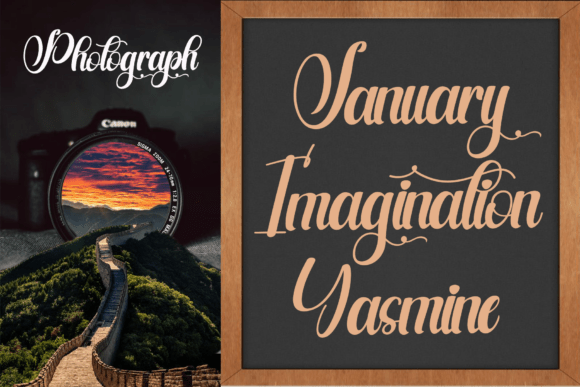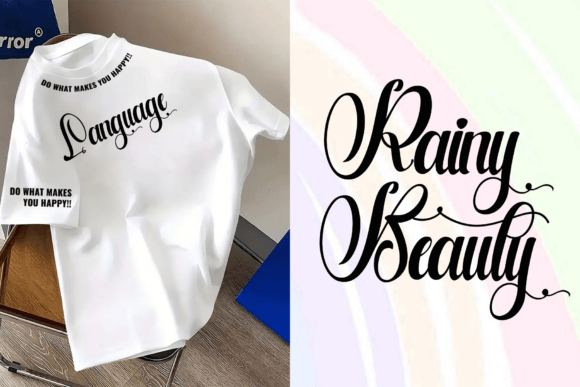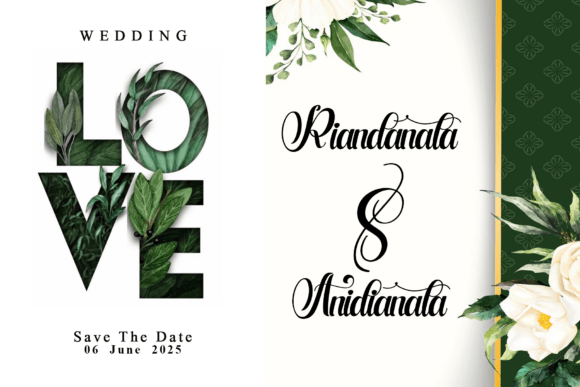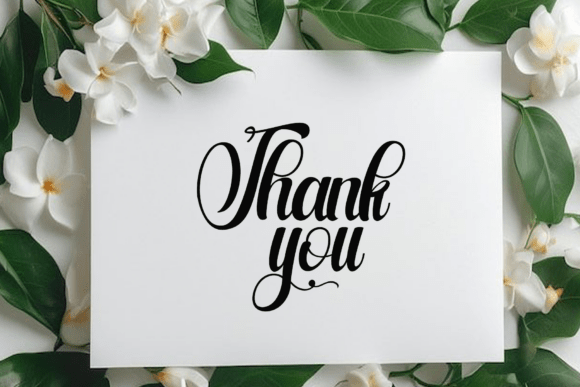
Unleashing the Elegance of August Beauty Font
As a designer, there’s nothing quite like the thrill of finding the perfect font to elevate your project from ordinary to extraordinary. For me, it’s often the moment when a font’s unique characteristics click into place, and I know I’ve found my perfect match. It’s a feeling of excitement and anticipation, like discovering a hidden treasure that will take my design to new heights.
One such treasure is the August Beauty Font, a luxurious script font that exudes refined charm and sophistication. With its dramatic swashes and elegant curves, this typeface is perfect for upscale branding, food packaging, and wedding invitations. Its timeless, sophisticated feel makes it an invaluable asset for designers seeking to create memorable and stylish designs.
Key Features of August Beauty Font
- Unique Characteristics: August Beauty Font features elegant, cursive script with a touch of sophistication and refinement, making it ideal for wedding invitations, greeting cards, and other formal events.
- Font Style: The font is a beautiful, handwritten script with a flowing and connected feel, perfect for creating a sense of romance and luxury.
- Font Weight: The font comes in regular and bold weights, allowing users to choose the perfect weight to suit their design needs.
August Beauty Font Review
I recently had the chance to work with the August Beauty Font, and I must say, it’s a unique and beautiful font that can elevate your designs to the next level. ✨ One thing I love about this font is its elegant and sophisticated look, perfect for high-end branding and advertising materials. The font’s curvaceous lines and subtle flourishes add a touch of sophistication and refinement, making it ideal for fashion, beauty, and luxury brands.
Here are some of the font’s strengths:
- ✨ Elegant and sophisticated design
- ✨ Perfect for high-end branding and advertising materials
- ✨ Ideal for fashion, beauty, and luxury brands
- ⚠️ The font may not be suitable for modern or minimalist designs
- ⚠️ The font’s complexity may make it difficult to read in smaller sizes
- ⚠️ The font’s aesthetic may not appeal to all audiences
Overall, I think the August Beauty Font is a great addition to any designer’s toolkit. While it may have some limitations, its unique and sophisticated design makes it perfect for high-end branding and advertising materials. With careful use, this font can help take your designs to the next level.
For best results, use the August Beauty Font for headings and titles, and pair it with a clean and simple font for body text.
The August Beauty Font is ideal for:
- Beauty and wellness branding
- Fashion and lifestyle marketing
- High-end product packaging
Alternatives to August Beauty Font
The Great Vibes Font is a beautiful, elegant script font that is perfect for creating a sophisticated and luxurious look. It’s ideal for use in branding, packaging, and advertising materials where a high-end feel is desired. Compared to August Beauty Font, Great Vibes Font has a more refined and polished appearance, making it suitable for a wider range of applications.
The Carolyna Pro Font is a modern, elegant script font that is perfect for creating a stylish and sophisticated look. It’s ideal for use in branding, packaging, and advertising materials where a touch of elegance is desired. Compared to August Beauty Font, Carolyna Pro Font has a more modern and sleek appearance, making it suitable for a wider range of applications.